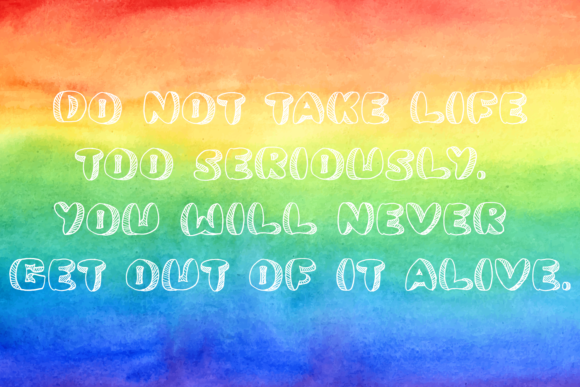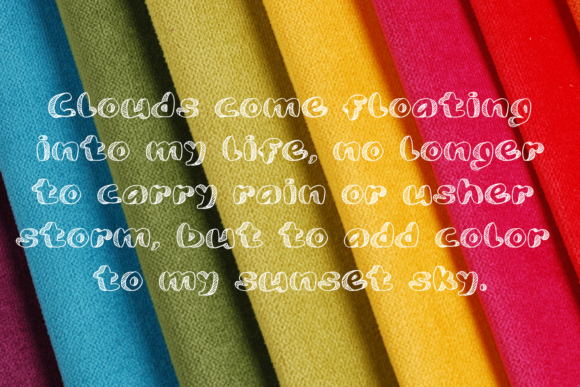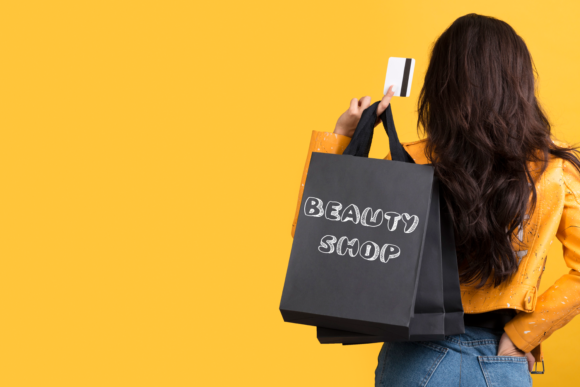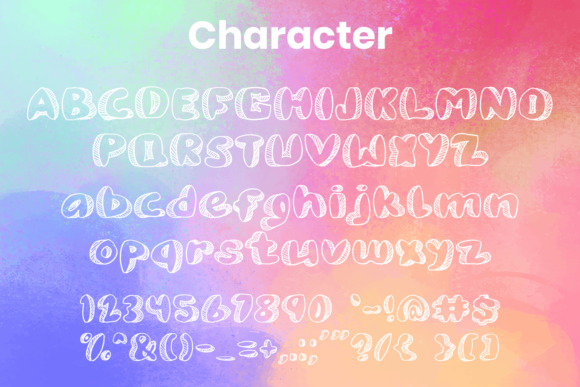
Introduction to Rainbow Storm Font
Have you ever been brainstorming a creative project and suddenly, the perfect font pops into your mind, setting the tone for your entire design? That’s exactly what happened to me when I discovered the Rainbow Storm Font. Its playful and bubbly vibe is impossible to ignore, and I knew I had to share it with the world.
As designers, we’re constantly on the lookout for unique and high-quality design resources that can elevate our work and make it stand out. That’s where the Rainbow Storm Font comes in – a free download that’s perfect for adding a touch of whimsy to your designs. With its transparent background and outlined style, this font is incredibly versatile and can be used in a wide range of creative projects.
Whether you’re working on a children’s book, a social media campaign, or a simple logo, the Rainbow Storm Font is sure to add a splash of fun and personality to your design. So, let’s dive in and explore the endless possibilities of this beautiful font!
Key Features of Rainbow Storm Font
- High-quality, unique font design ideal for creative projects, with a rainbow storm theme
- Perfect design resource for artistic projects, with a transparent background for versatility
- Includes 6 different font styles, each with its own unique characteristics and nuances
Honest Review: Rainbow Storm Font
I recently had the chance to work with the Rainbow Storm Font, and I must say it’s been a fun addition to my design resource collection. This font is perfect for creative projects that need a bit of whimsy and personality.
What works well: ✨ The Rainbow Storm Font comes in a free download, which is a huge plus for designers on a budget. The font itself is high quality and easy to use, even for those who are new to design. One of the standout features is the transparent background option, which allows for seamless integration into any design project.
Limitations: ⚠️ The Rainbow Storm Font is best suited for digital projects, as it can be a bit tricky to print at a high quality. Additionally, the font may not be as versatile as some other options, but for the right project, it’s a great choice.
Overall, I’m really impressed with the Rainbow Storm Font. It’s a great addition to any designer’s toolkit and is sure to add some personality to any creative project.
Tips for Getting the Most Out of Rainbow Storm Font
Use the Rainbow Storm Font on a transparent background to create a striking visual effect. Experiment with different font sizes and colors to add depth and interest to your design. You can also pair the font with other high-quality design resources to create a cohesive and engaging visual identity.
Common Use Cases for Rainbow Storm Font
The Rainbow Storm Font is ideal for creative projects that require a bold and eye-catching visual effect, such as social media graphics, posters, and infographics. You can also use it for branding and marketing materials, such as business cards and brochures, to add a touch of personality and whimsy to your design.